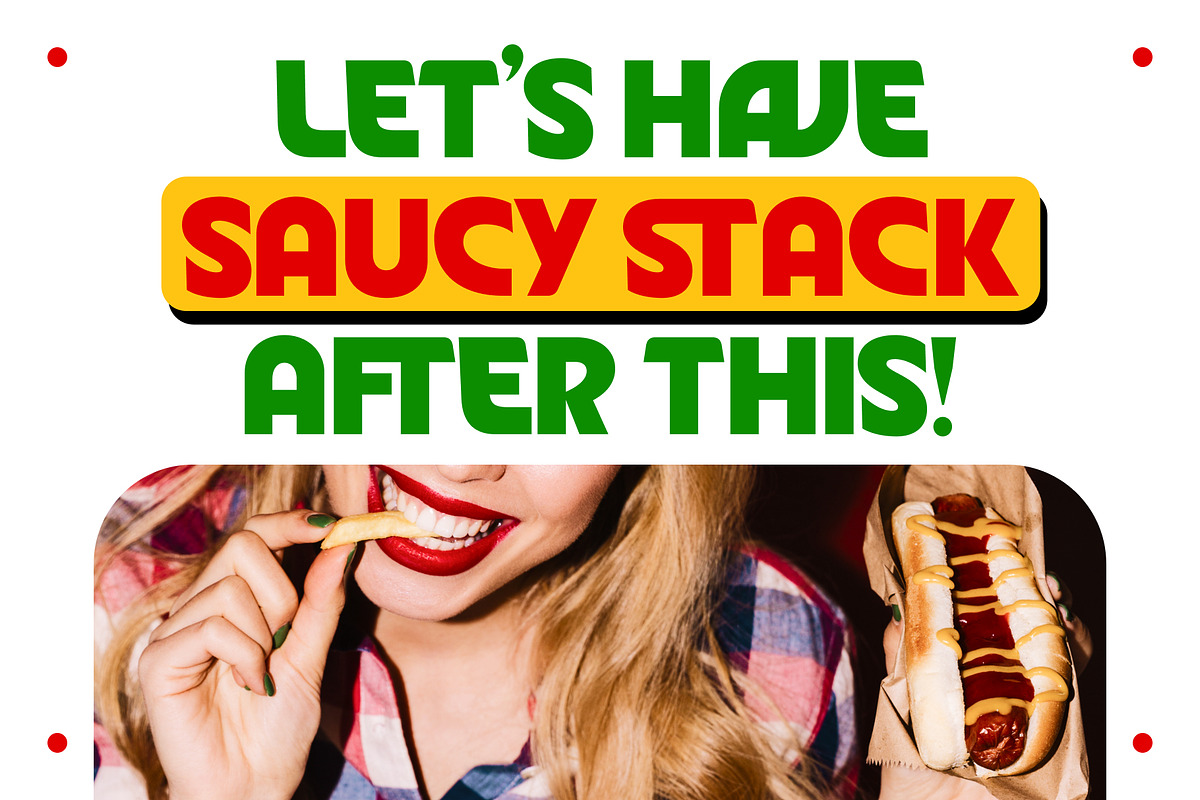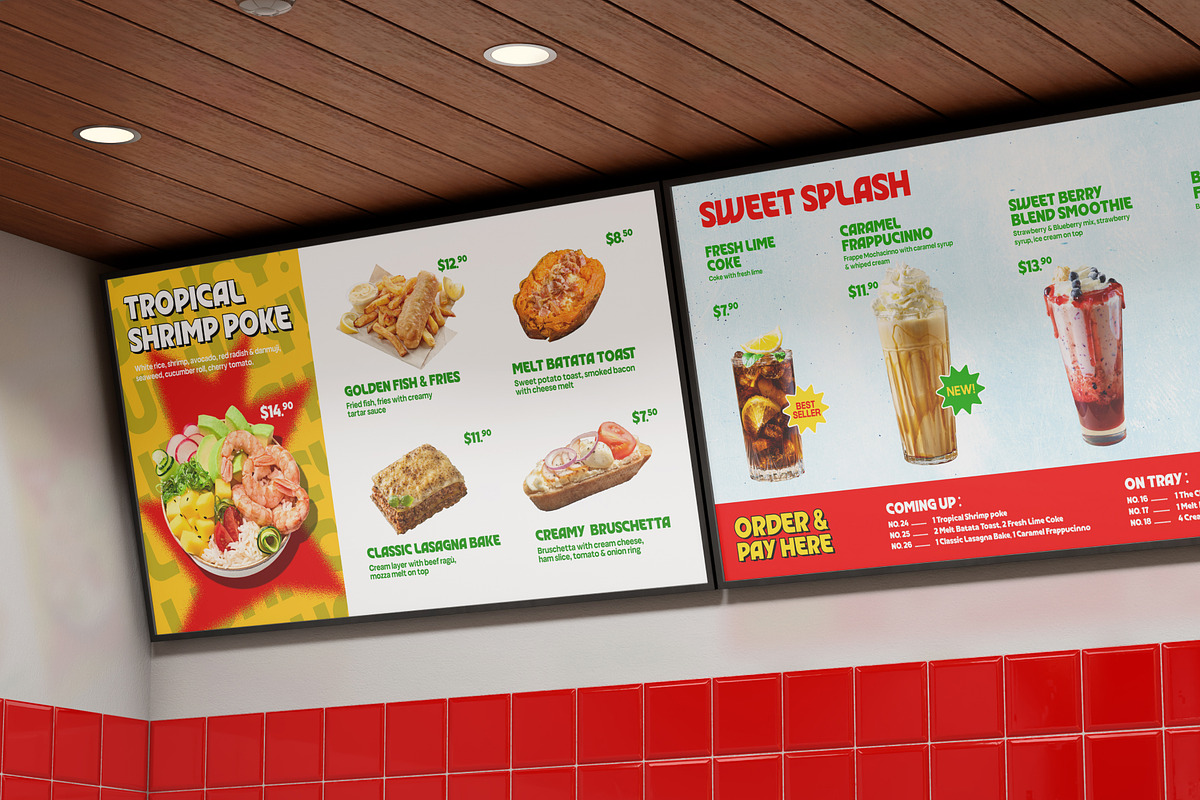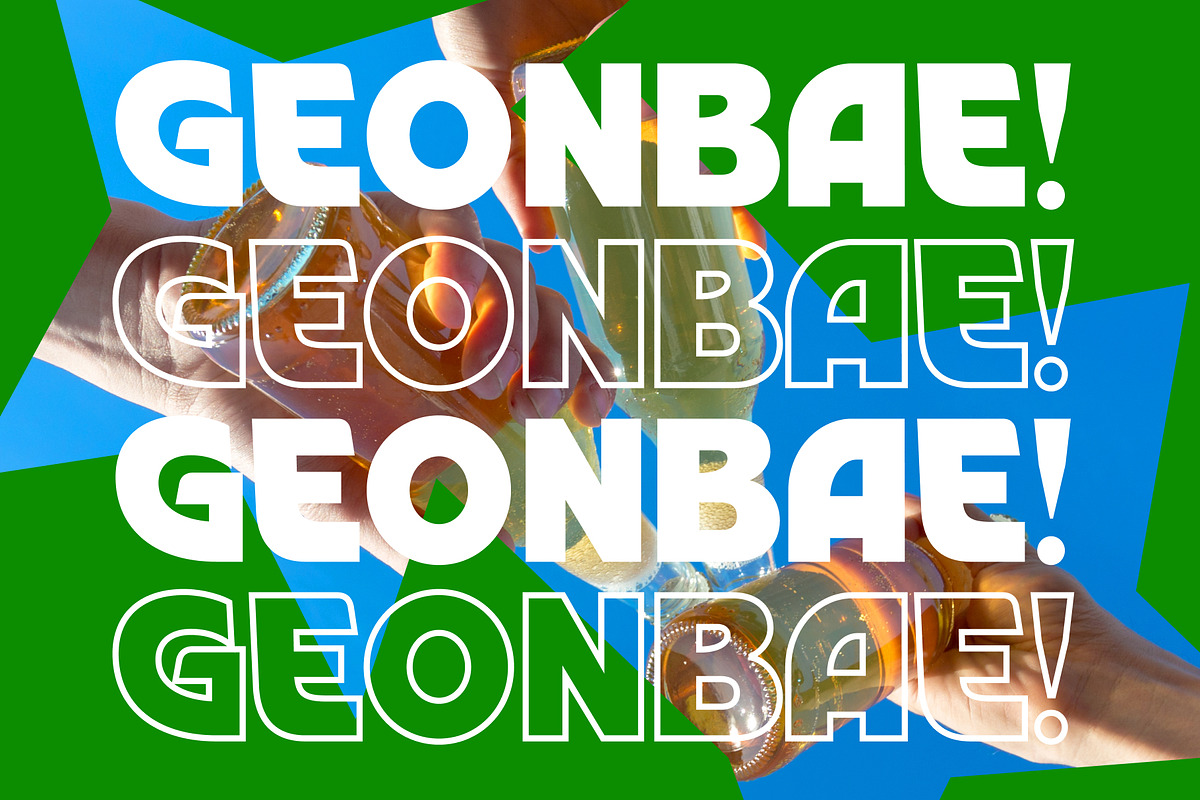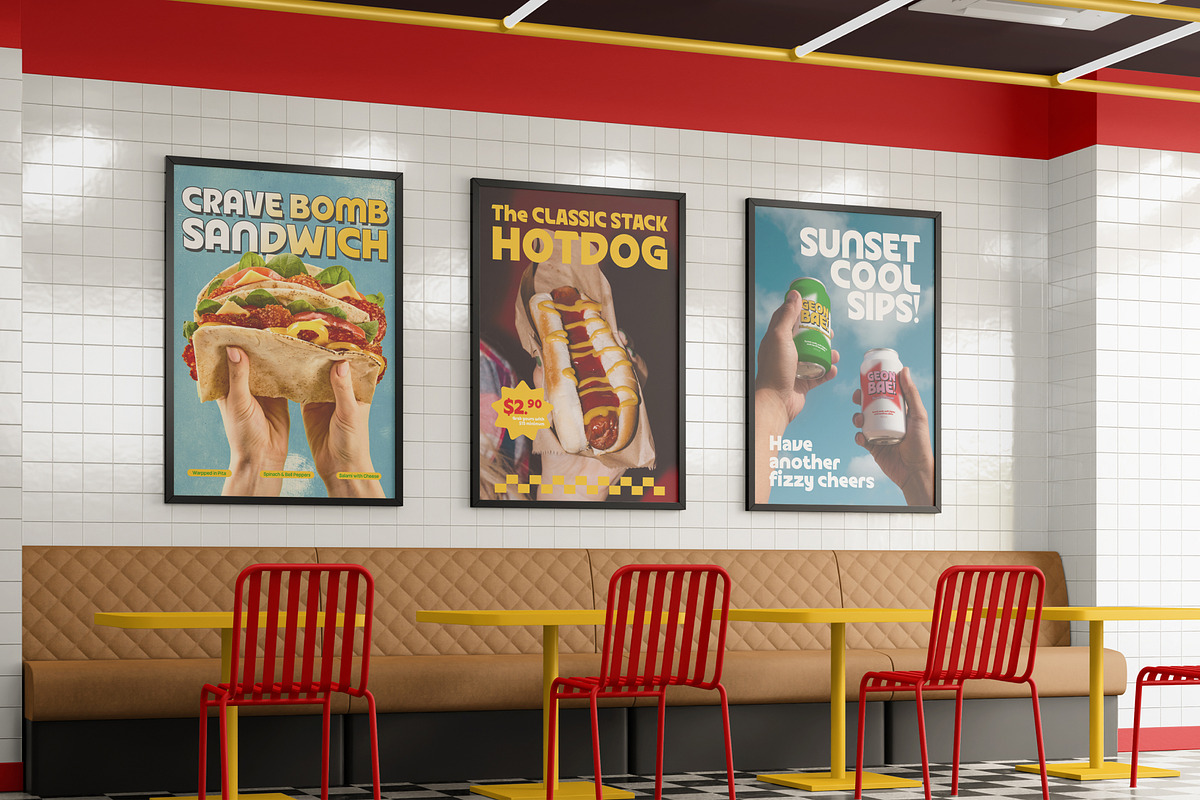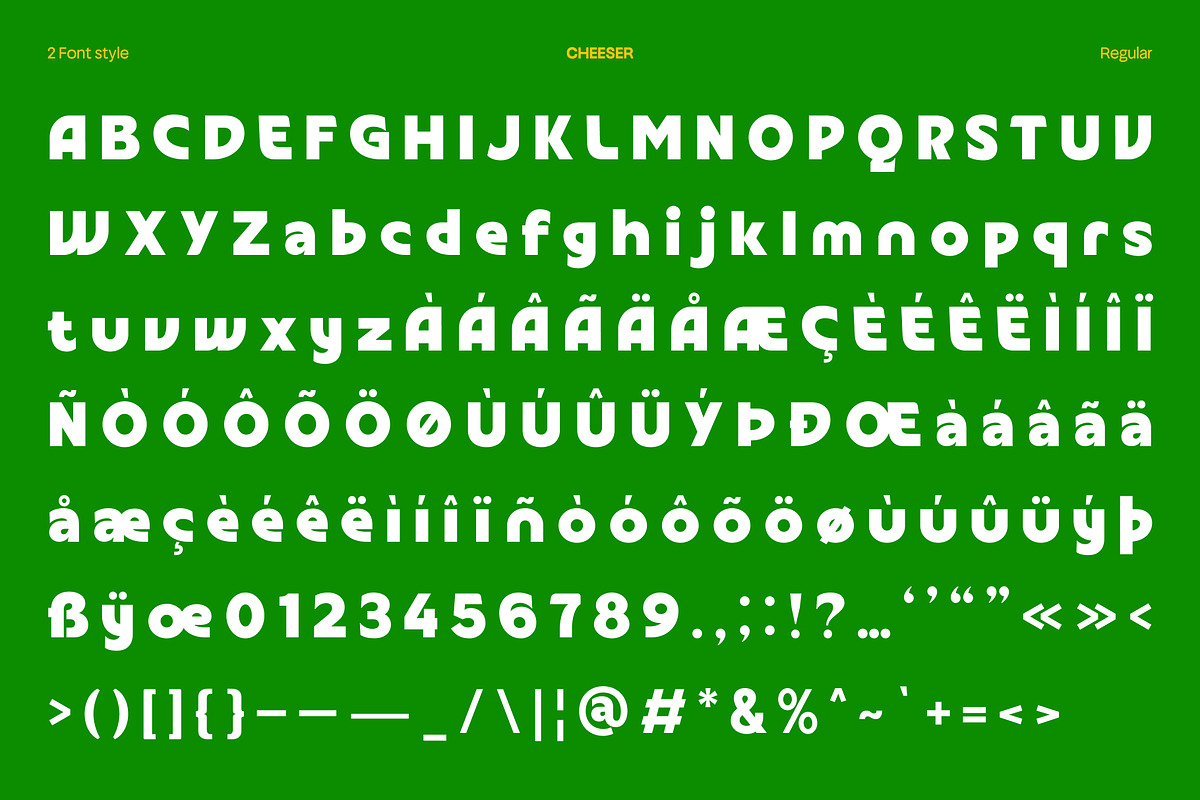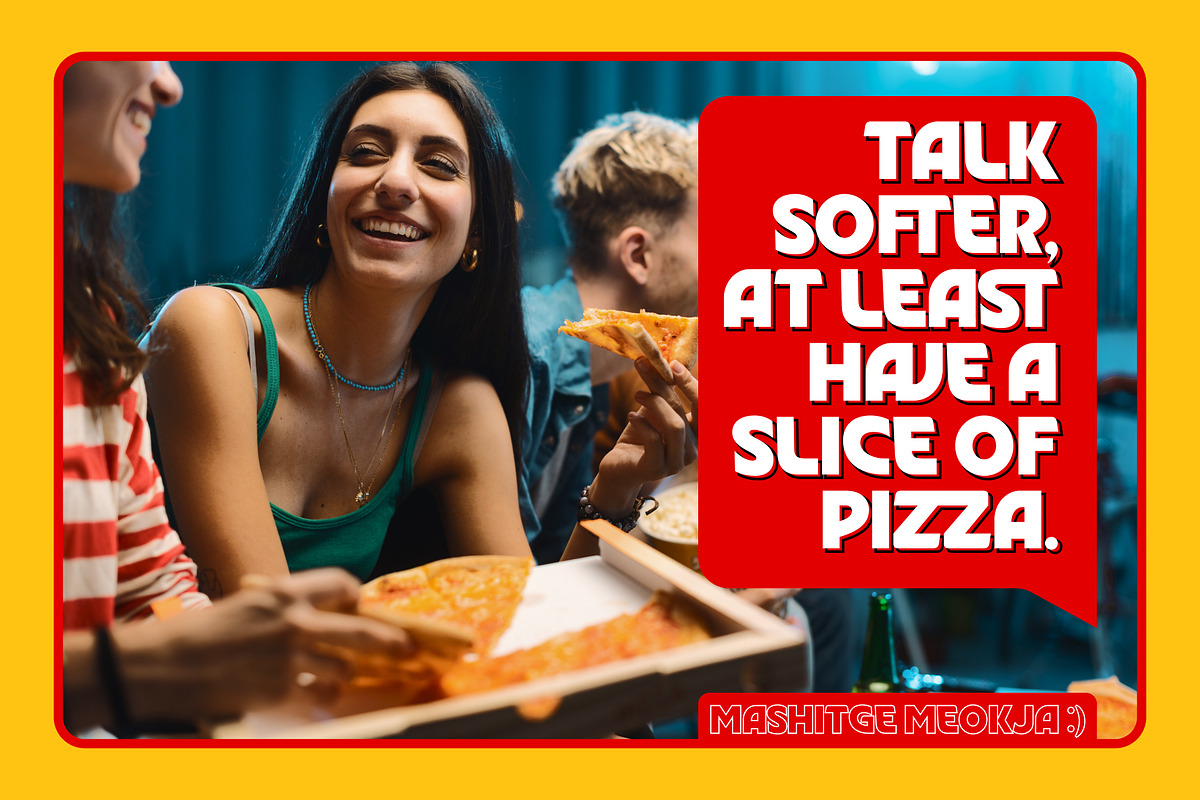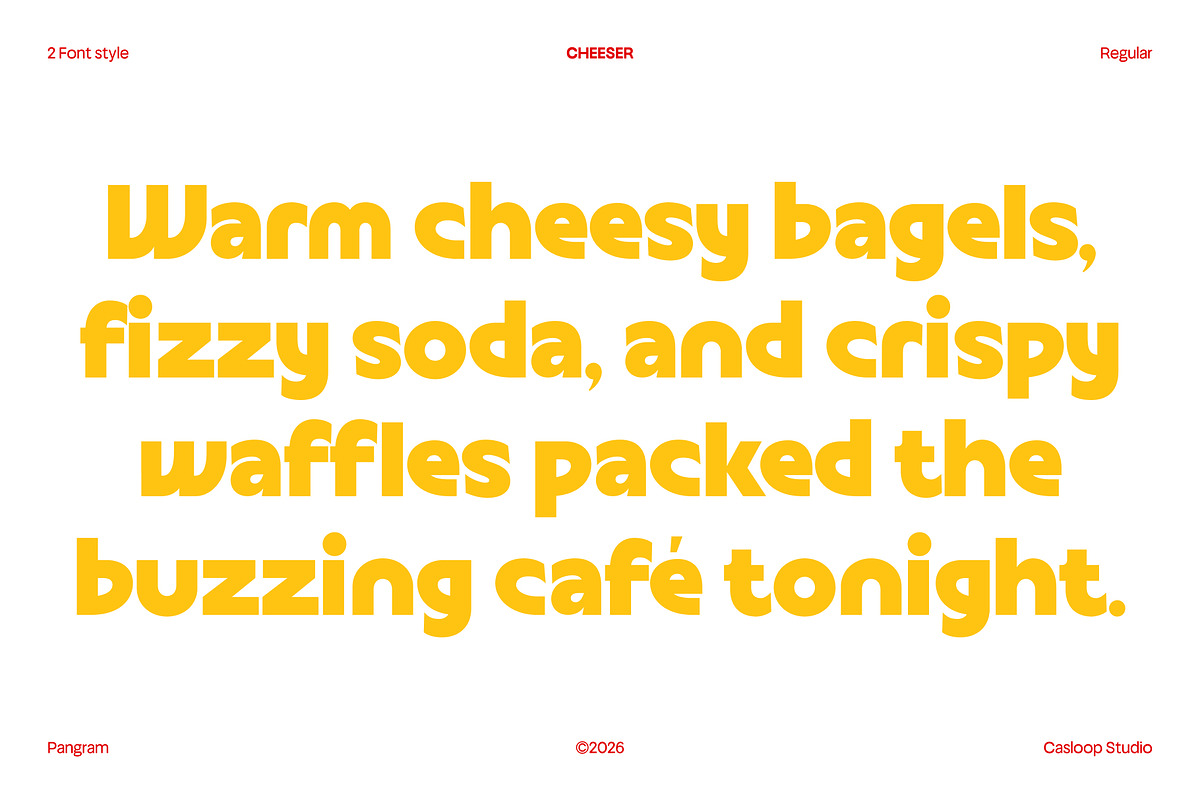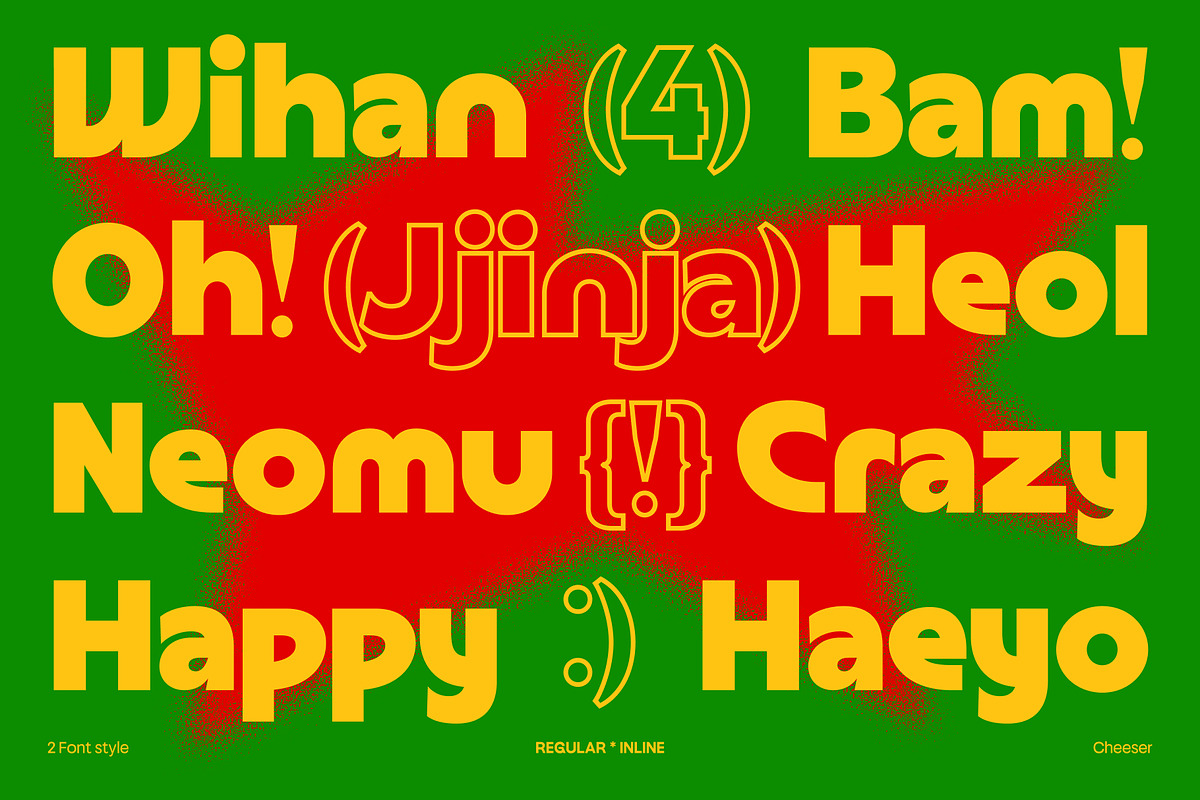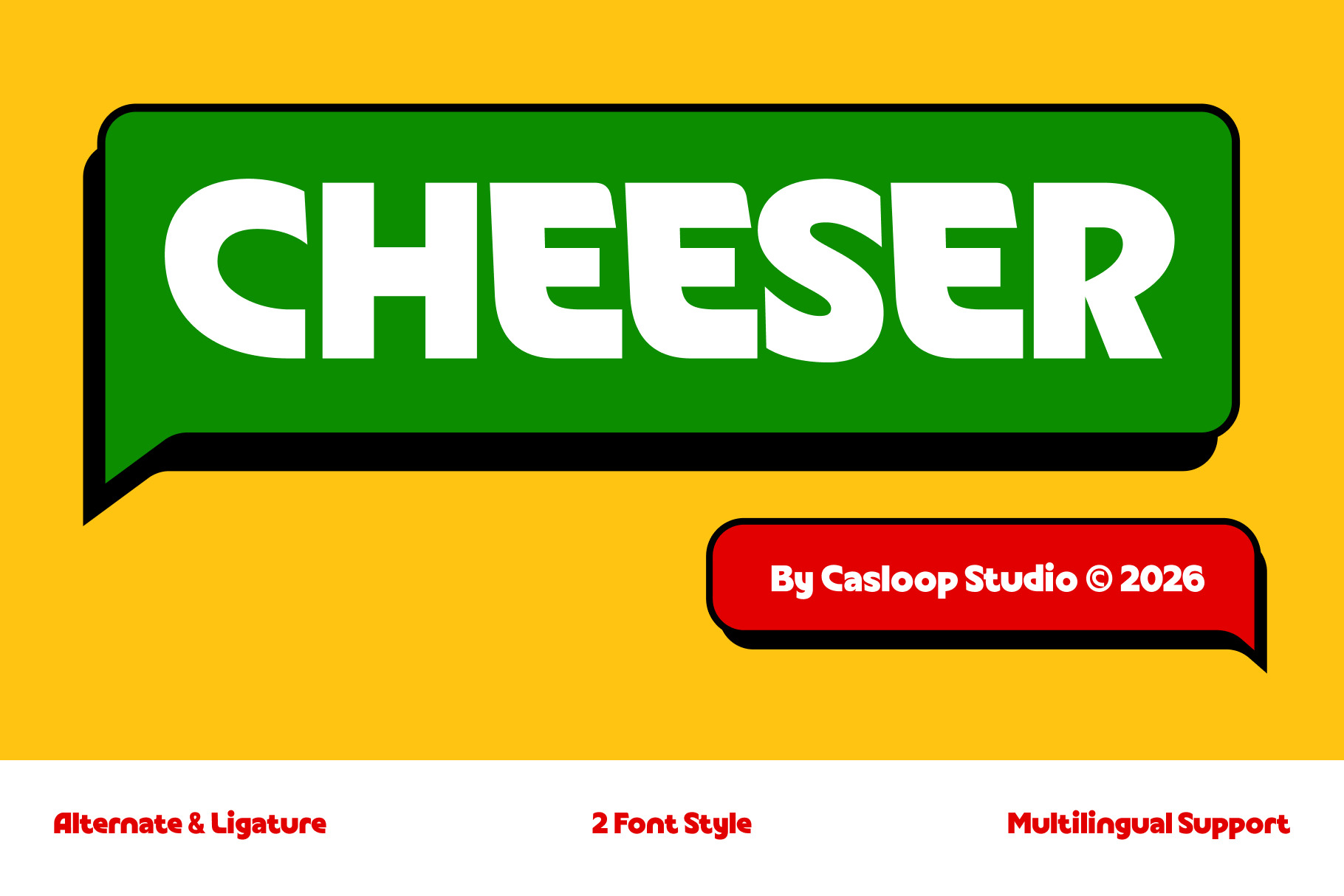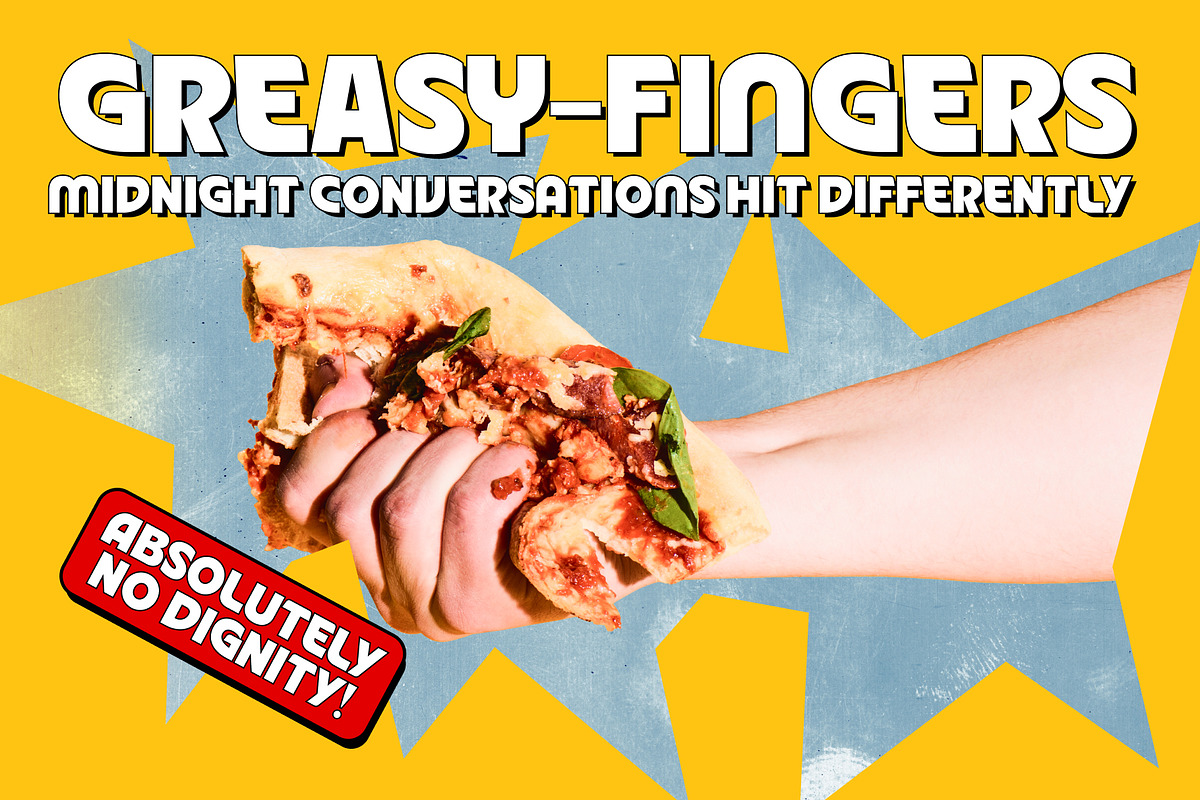
Cheeser – Stylistic Display Font
Cheeser is a stylistic vintage display font inspired by classic sign painting, retro food packaging, and nostalgic cafe culture. Its standout characters G, R, S, A, Q, and E feature thick, compact constructions with soft rounded corners that create a chewy, playful personality full of visual flavor. The carefully shaped counters and curved terminals strengthen its old-school fast-food aesthetic, delivering a warm retro atmosphere that feels both bold and approachable. Designed with a strong promotional mood, Cheeser works perfectly for cafe branding, packaging, signage, menus, and headline designs that want to capture attention with energetic vintage charm and delicious visual character. Recommended pairing with Fredoka, Bebas Neue, Archivo Narrow, Cooper Black, Franklin Gothic, Futura
Uppercase & Lowercase,
Numbers and punctuation,
Ligatures & Stylistic Alternates Characters
Multilingulal Support : Bosnian, Catalan, Czech, Danish, German, English, Spanish, Estonian, Finnish, French, Irish, Croatian, Hungarian, Icelandic, Italian, Lithuanian, Latvian, Dutch, Norwegian, Polish, Portuguese, Romanian, Slovak, Slovenian, Albanian, Swedish, Turkish.